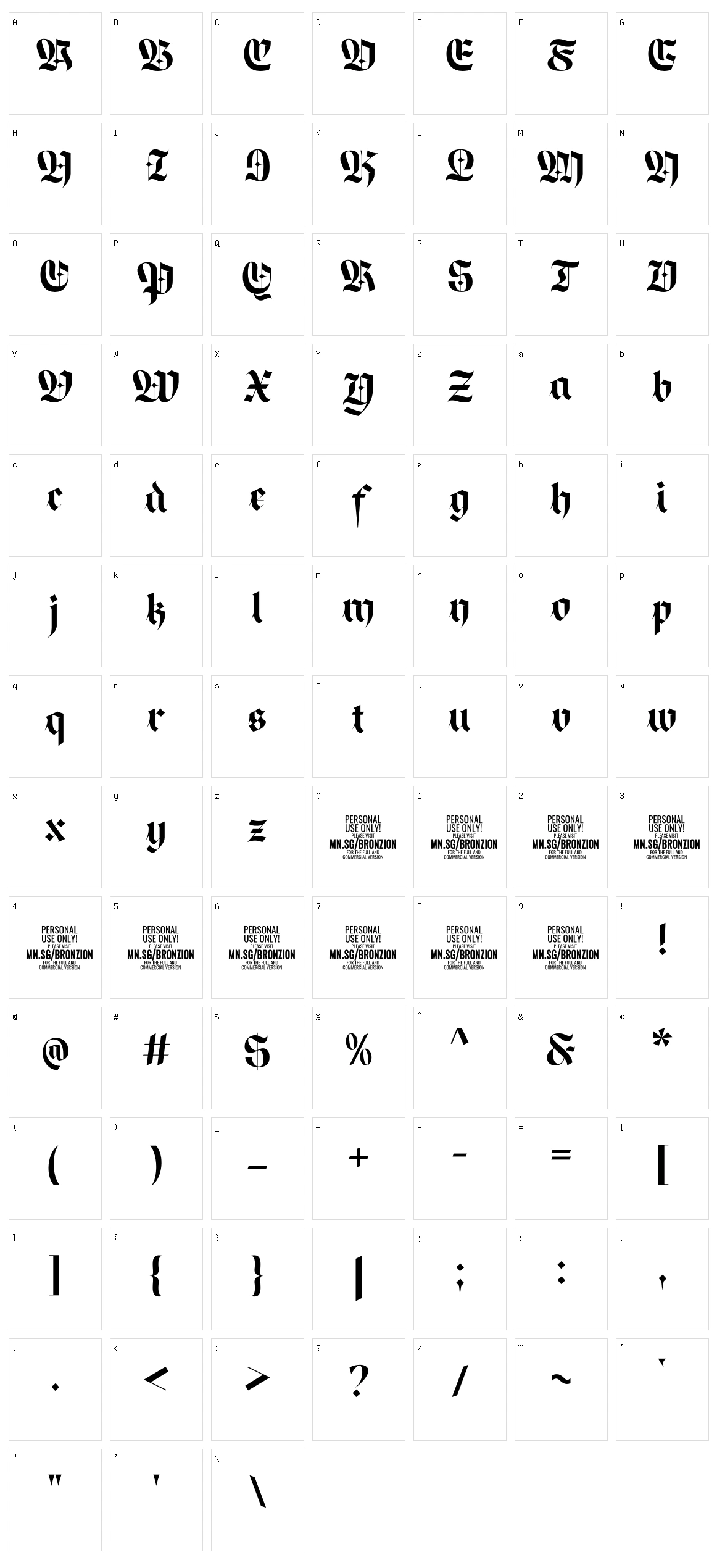
Bronzion Castle
Designed by: Mans Greback
Category: Medieval & Gothic
Bronzion Castle is a sharp medieval blackletter font.
A font of balance and clarity, this crisp typeface is your go-to for a straightforward but versatile blackletter experience.
With its dark ages inspiration, Bronzion Castle is a captivating blend of calligraphy and heavy metal undertones. The typeface captures the ornamental beauty of middle ages manuscripts while catering to modern design needs. Its heavy, intricate design makes it perfect for projects that require a touch of medieval grandeur.
Bronzion Castle is built with advanced OpenType functionality and has a guaranteed top-notch quality, containing stylistic and contextual alternates, ligatures, and more features; all to give you full control and customizability. It has extensive lingual support, covering all Latin-based languages, and includes all the characters and symbols you'll ever need.
Behind this elegant creation is Mans Greback. Known for his ability to infuse classical elements into modern designs, Greback has once again proven his versatility with Bronzion. His portfolio is an ever-growing collection of typographic brilliance, each typeface a unique story in itself.